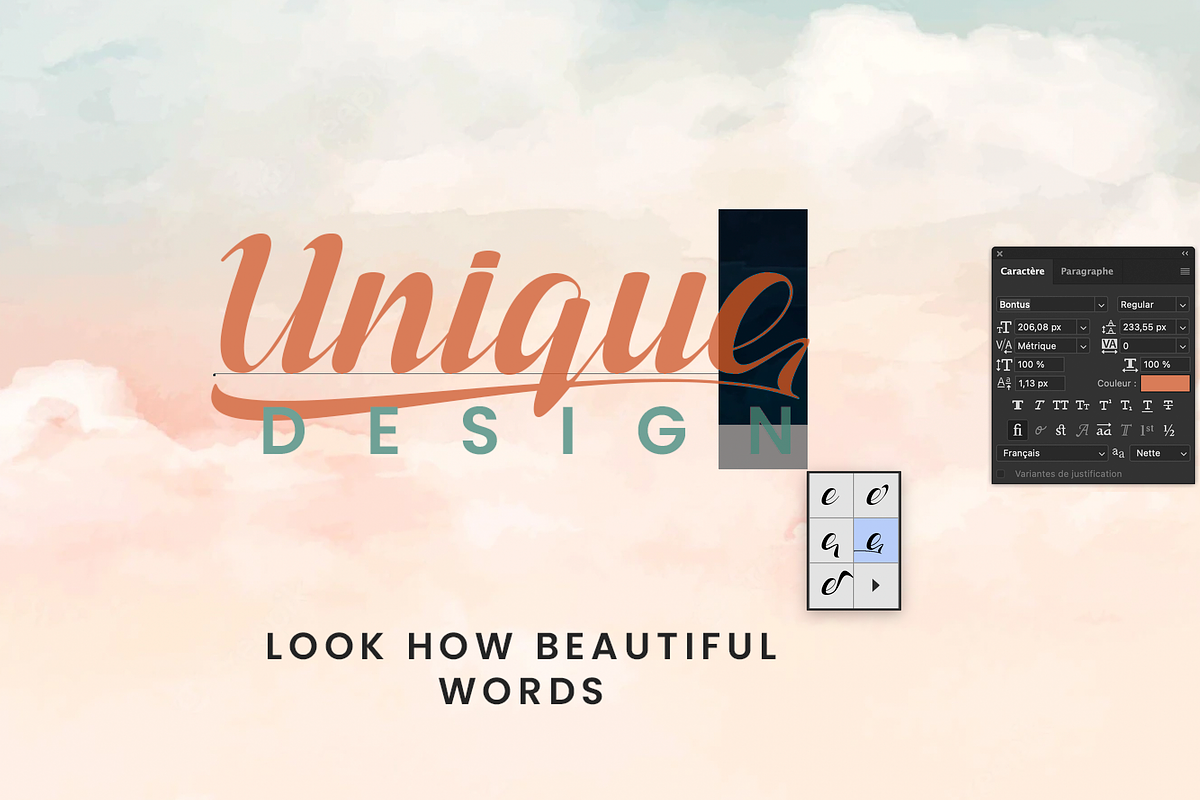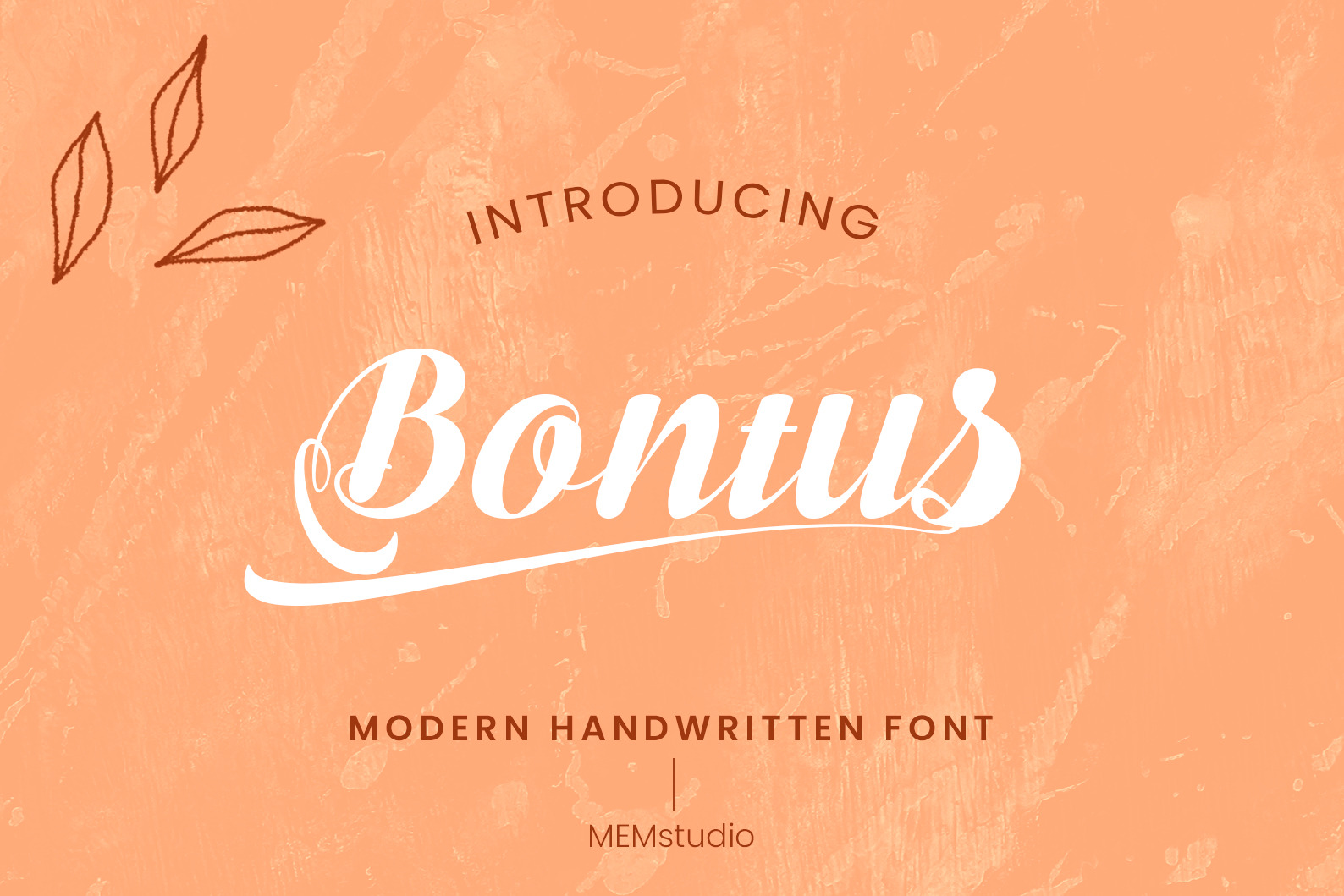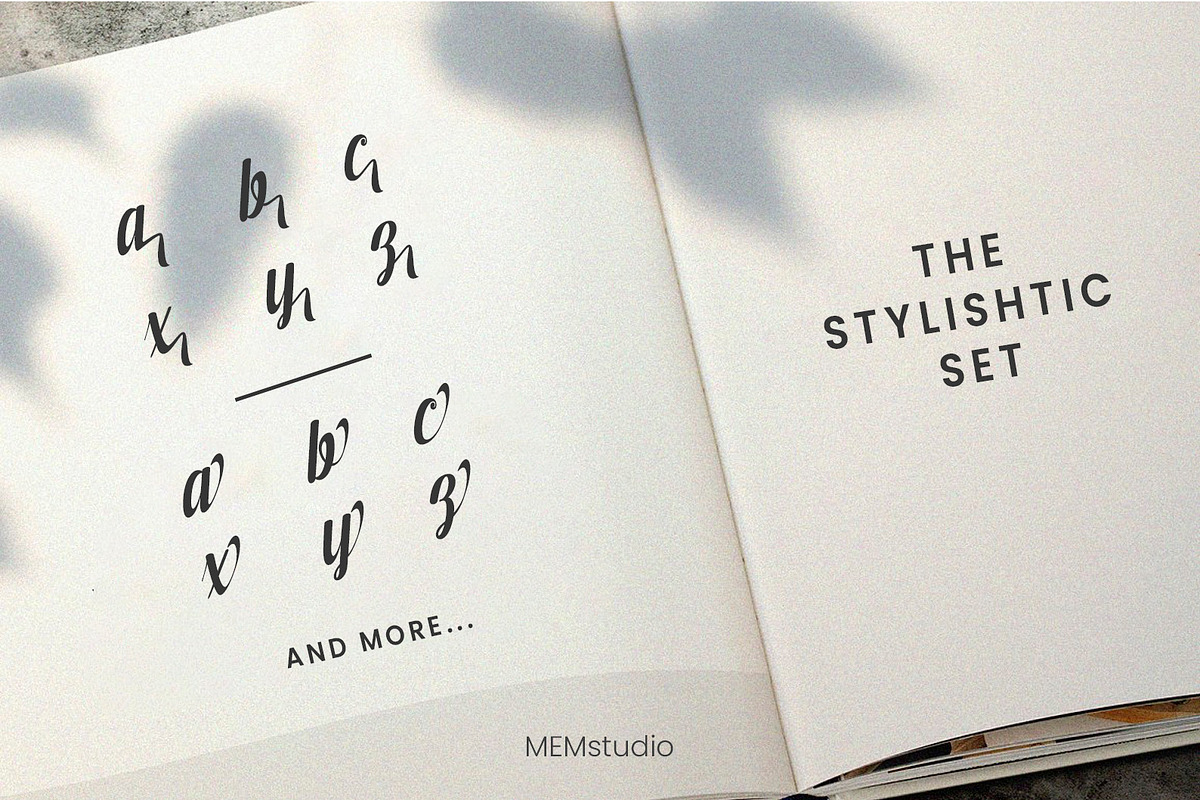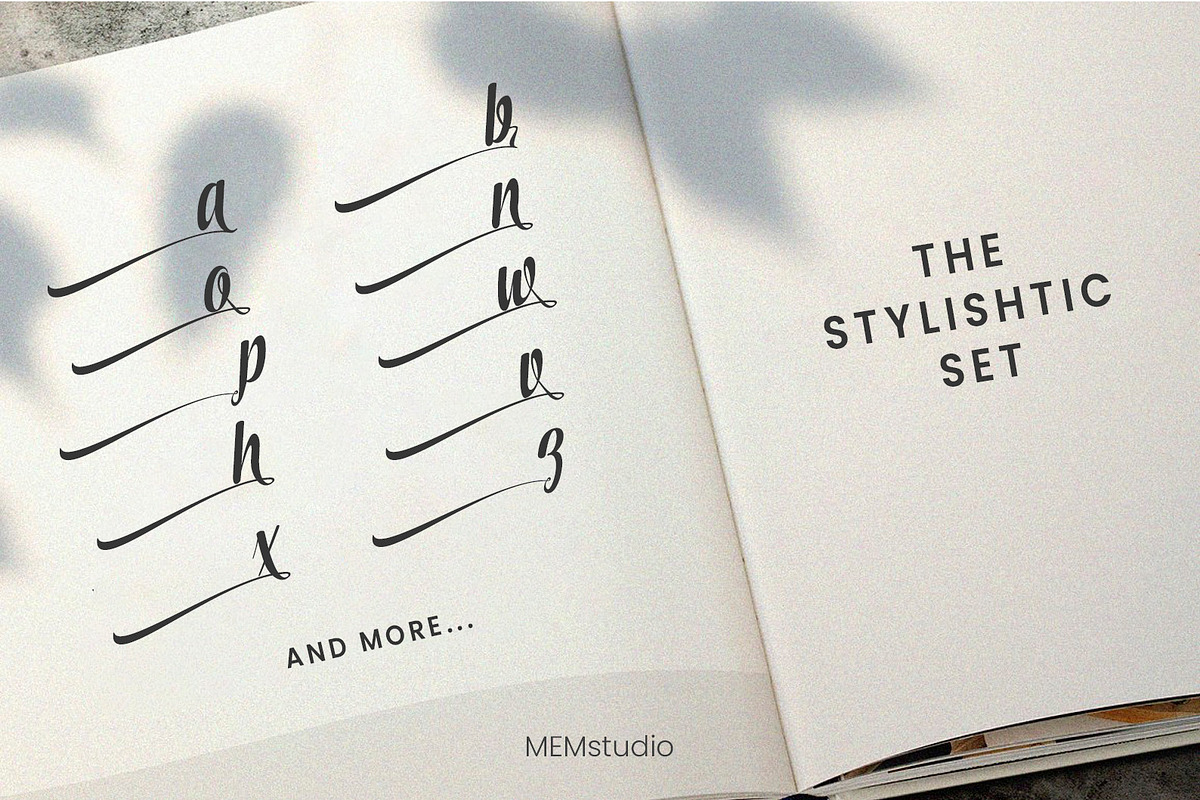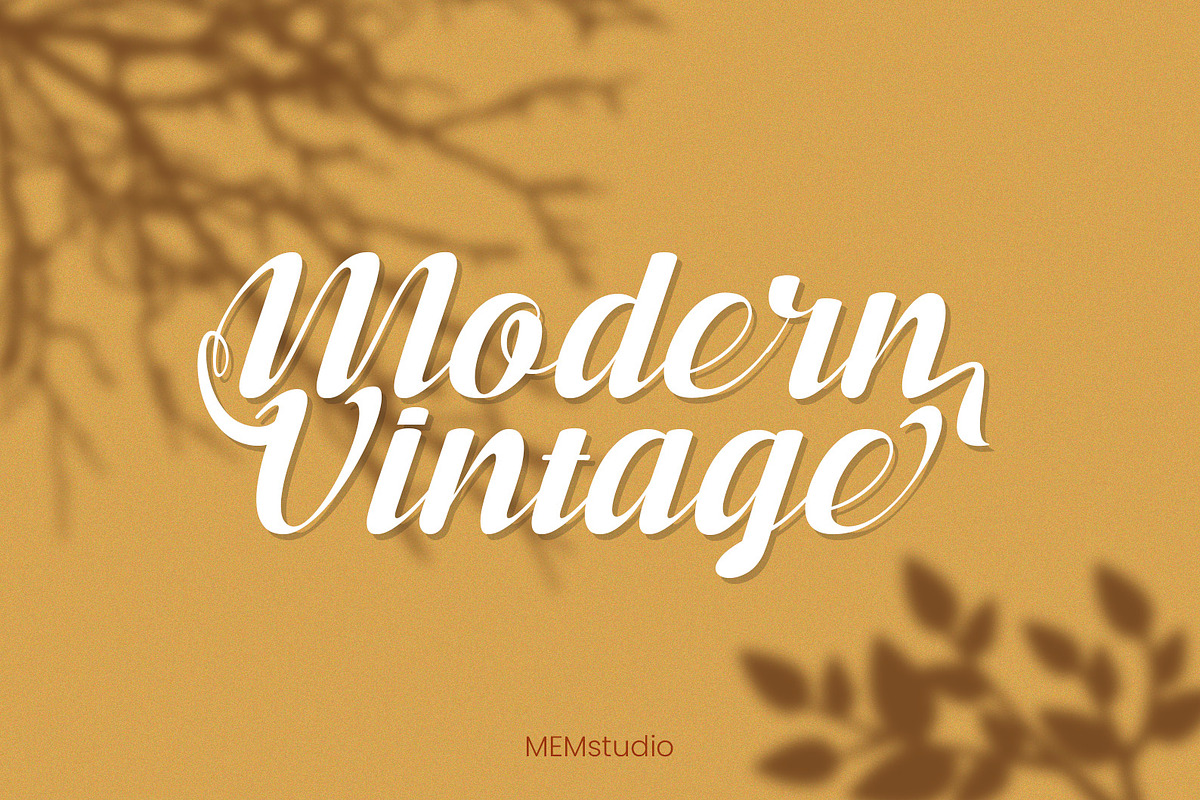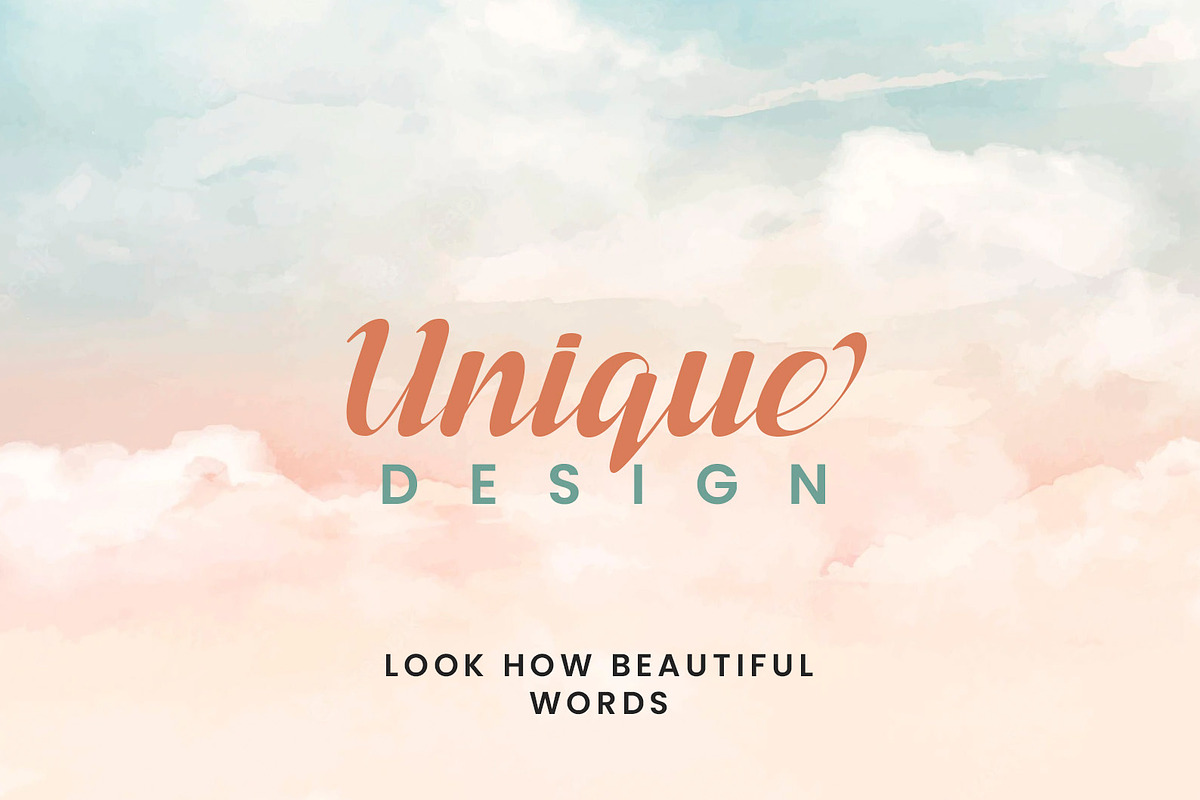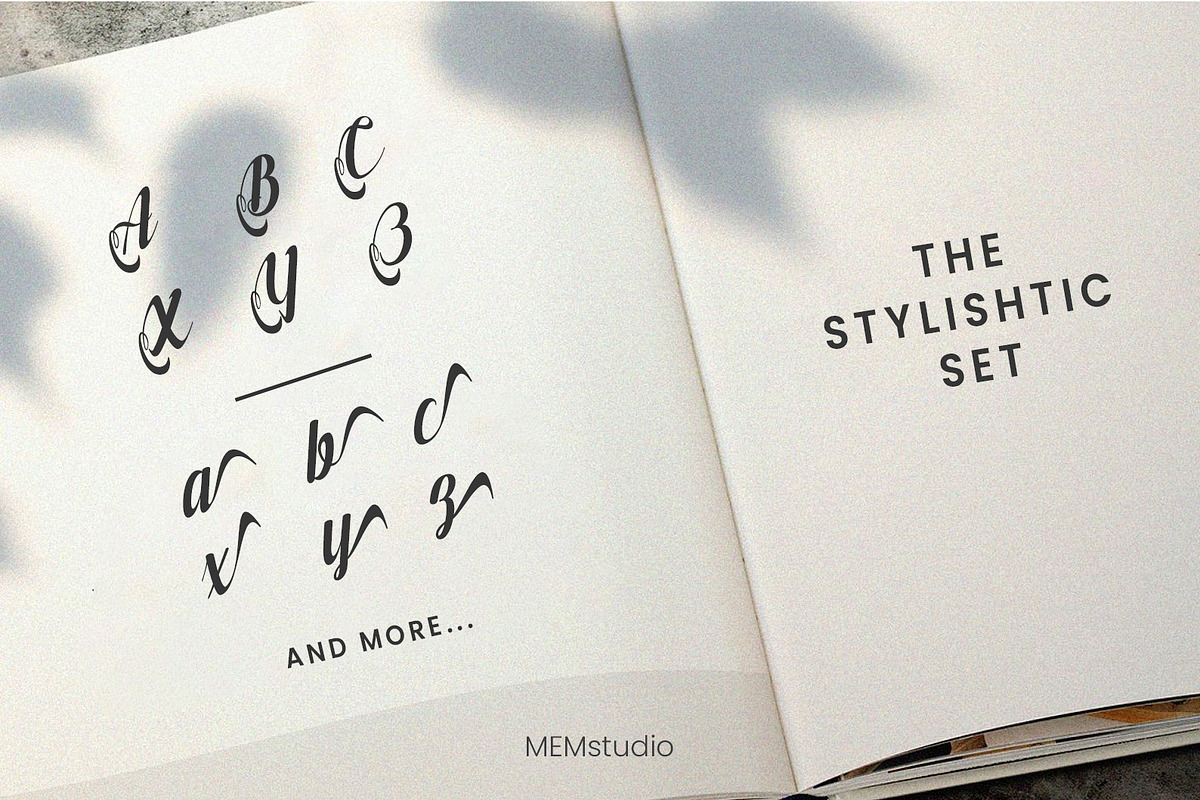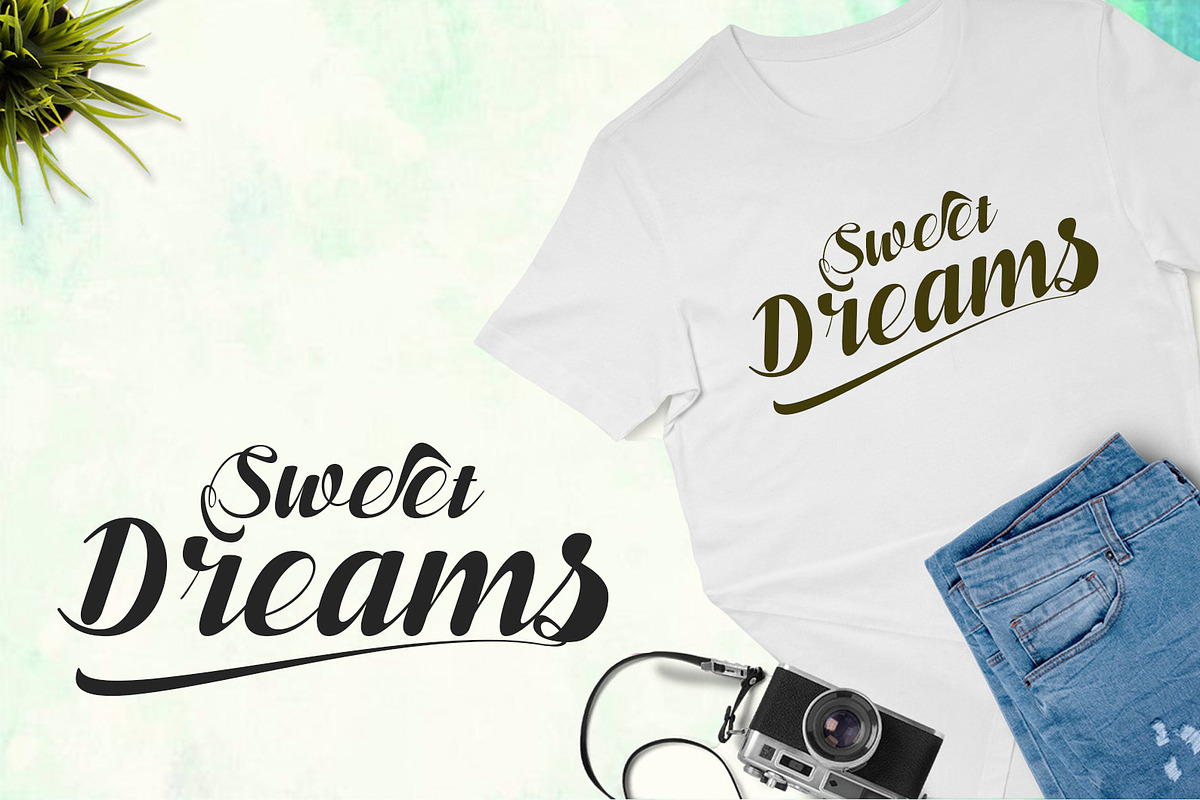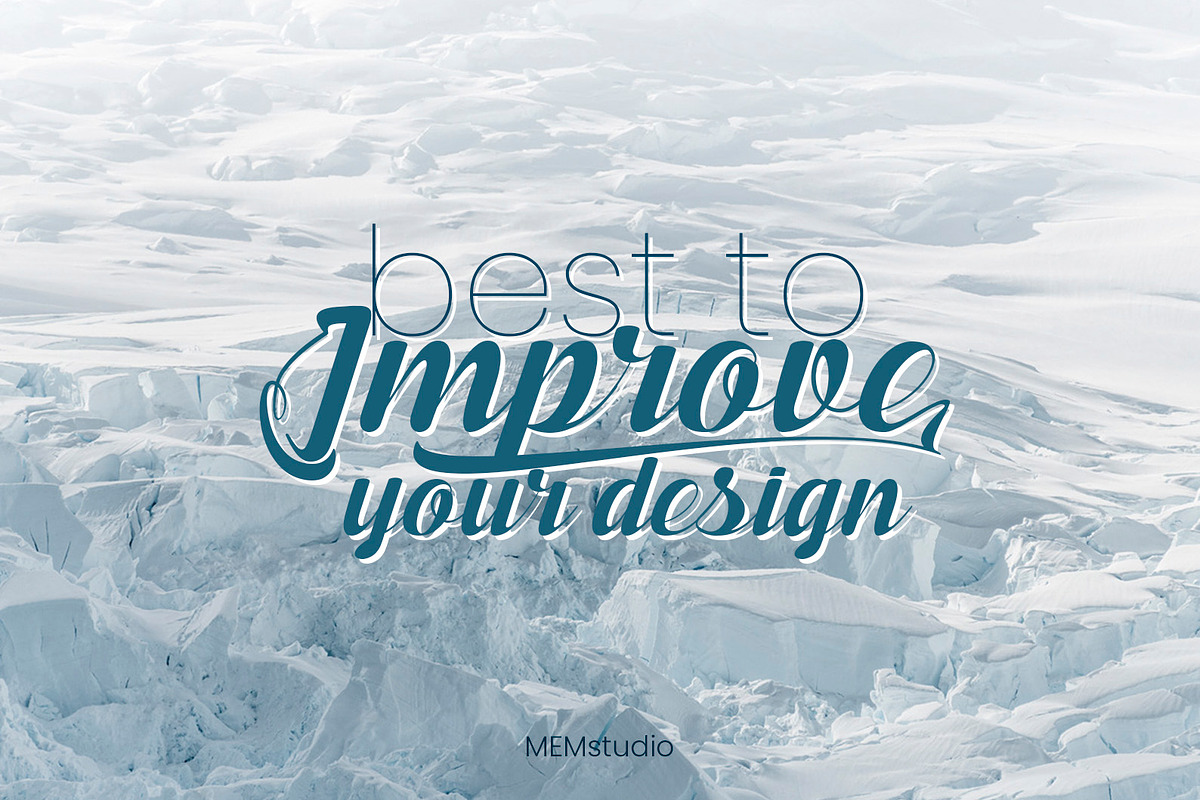
Bontus Font
Introducing Bontus script —a captivating fusion of elegant script and contemporary serif, boasting an ensemble of distinctive ligatures.
Bontus is meticulously crafted for commanding attention in headlines, titles, and concise text. Its versatility shines in advertising, evoking a vintage ambiance, enhancing branding, crafting logos, packaging, editorial designs, modern website aesthetics, captivating social media quotes, infusing wedding branding with sophistication, and seamlessly blending into both modern and vintage designs.